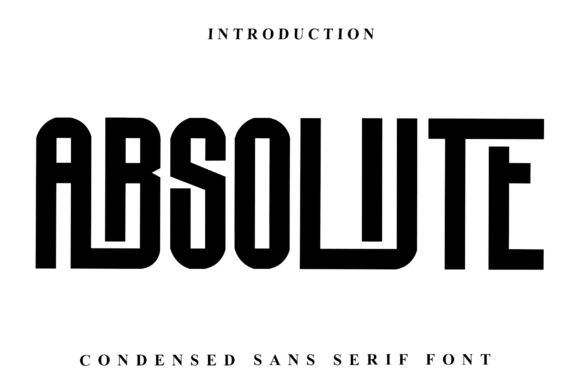
Unlocking the Power of Typography: Introducing the Absolute Font
You’ve spent hours perfecting your design, pouring your heart into every detail, and finally, you’re ready to bring it all together. But, something’s missing – a font that truly elevates your message. That’s where the Absolute Font comes in – a smart and minimal sans-serif display font designed to make your typography instantly memorable.
With its unique blend of soft curves and modern minimalism, the Absolute Font is the perfect addition to any design project. Whether you’re working on branding, tech presentations, or fashion editorials, this font adapts effortlessly to various design needs, striking a balance between professionalism and creativity. Its clean lines, rounded terminals, and creative “oo” ligature make it a valuable asset for designers looking to add a modern edge to their projects.
Key Features of Absolute Font
- Font Family: Absolute Font is a sans-serif font family with multiple weights and styles, including bold, italic, and regular.
- Character Set: Supports a wide range of languages, including Latin, Cyrillic, Greek, and many others, with over 2000 glyphs.
- Unique Characteristics: Designed to be highly legible and readable, even at small font sizes, making it ideal for body text and digital interfaces.
Designer Review: Absolute Font
As a designer, I’ve had the chance to work with a lot of fonts, but Absolute Font is one that really caught my attention. Here’s what I think:
- Unique Personality: Absolute Font has a distinct, bold personality that really stands out from the crowd.
- Customizability: The font is highly customizable, allowing me to tweak its look to fit my design needs.
- Legibility: Despite its bold appearance, Absolute Font is still easy to read, even at small font sizes.
- Limited Language Support: I found that Absolute Font doesn’t support as many languages as I’d like, which can be a problem for international designs.
- Not Ideal for Body Text: While Absolute Font is great for headlines and titles, it’s not the best choice for body text, where legibility and readability are key.
Overall, I think Absolute Font is a solid choice for designers looking to add some personality to their designs. While it may have some limitations, its unique personality and customizability make it a valuable addition to any design toolbox.
Tips for Getting the Most Out of Absolute Font
For optimal results, use Absolute Font in conjunction with high-quality images and carefully crafted design elements.
Experiment with different font sizes, colors, and styles to achieve the desired visual effect.
Absolute Font is commonly used in:
Corporate branding and identity
Marketing materials and advertising
Web design and development
Graphic design and print materials